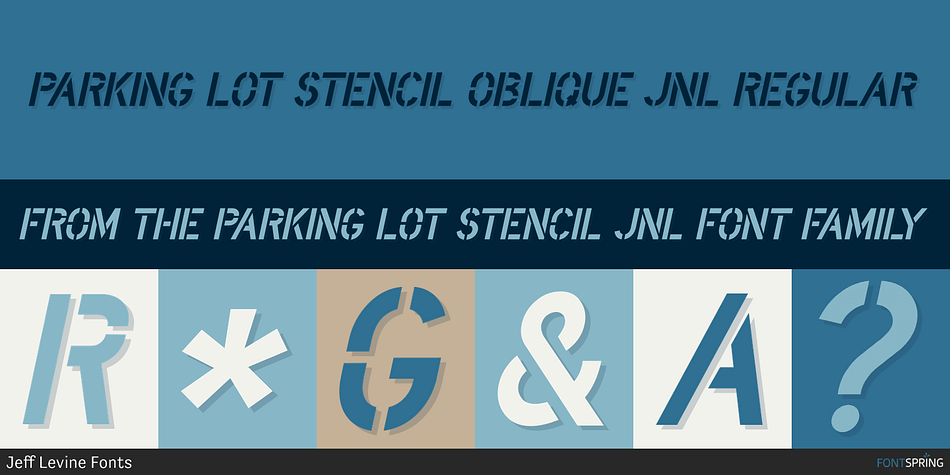
PARKING LOT STENCIL OBLIQUE JNL REGULAR
Parking Lot Stencil JNL is a stencil font family. This typeface has two styles and was published by Jeff Levine Fonts.
At first glance Parking Lot Stencil JNL look quite similar to many sans stencil fonts, but rest assured there are numerous subtle nuances that give the typeface its own unique flavor.
Modeled after the plastic stencils used for marking numbers and directional information on paved surfaces, the lettering is clean yet industrial.